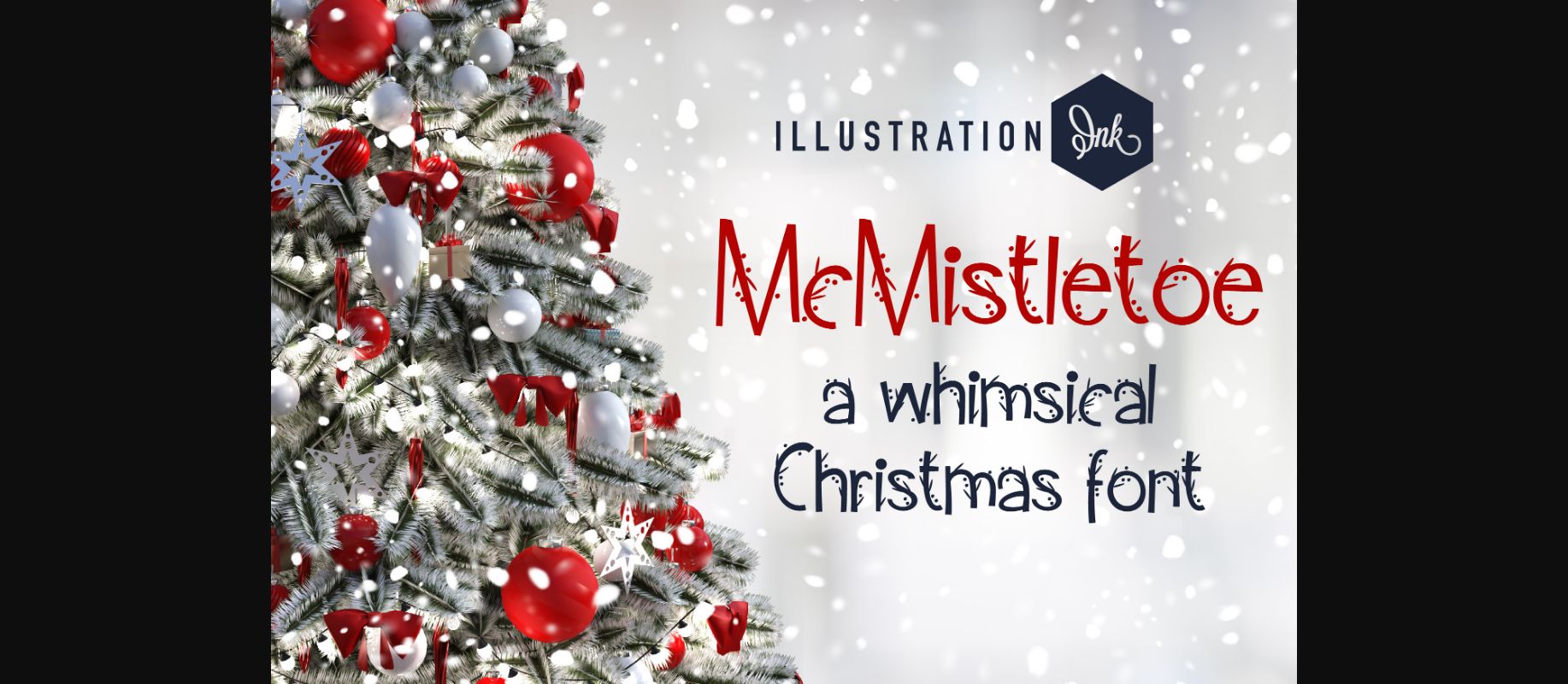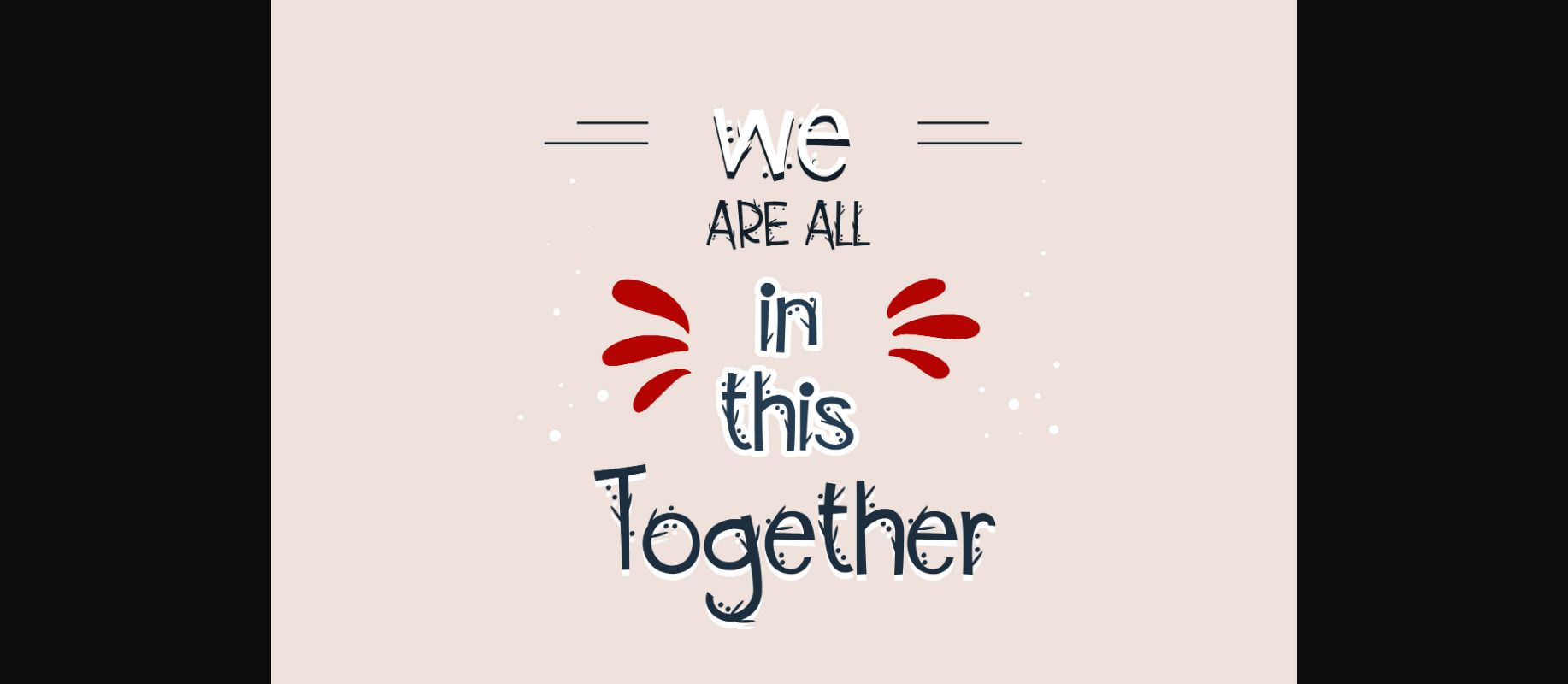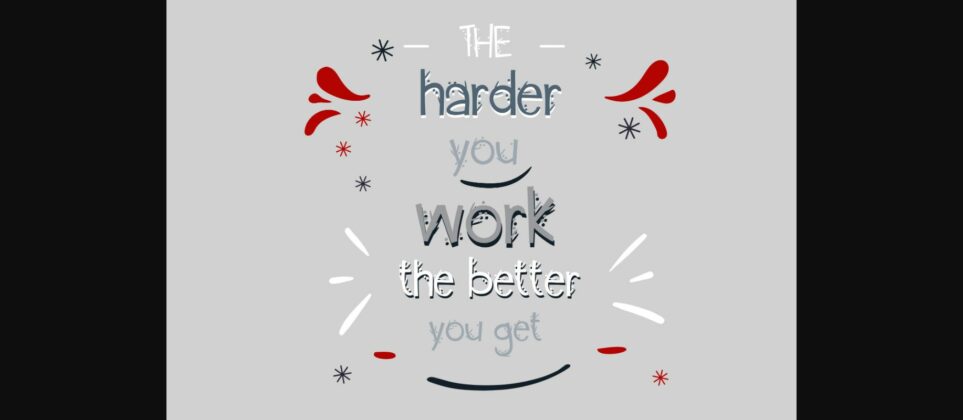
About McMistletoe Font
This hand-crafted sans serif font features mistletoe on each letter.
A hand-crafted font is a font that is designed to look like it was written by hand. It is often used for invitations, greeting cards, and other items. Handwritten fonts can be either formal or informal, and they can be used for a variety of purposes.
Handwritten fonts can be a great way to add a casual touch to your designs. They can also be used to create a sense of nostalgia or whimsy. However, it is important to choose a handwritten font that is appropriate for the project you are working on. A formal handwritten font may not be appropriate for a casual invitation, while an informal handwritten font may not be appropriate for a corporate document.
A hand-crafted font is a font that is designed to look like it was written by hand. It is often used for invitations, greeting cards, and other items. Handwritten fonts can be either formal or informal, and they can be used for a variety of purposes.
Handwritten fonts can be a great way to add a casual touch to your designs. They can also be used to create a sense of nostalgia or whimsy. However, it is important to choose a handwritten font that is appropriate for the project you are working on. A formal handwritten font may not be appropriate for a casual invitation, while an informal handwritten font may not be appropriate for a corporate document.